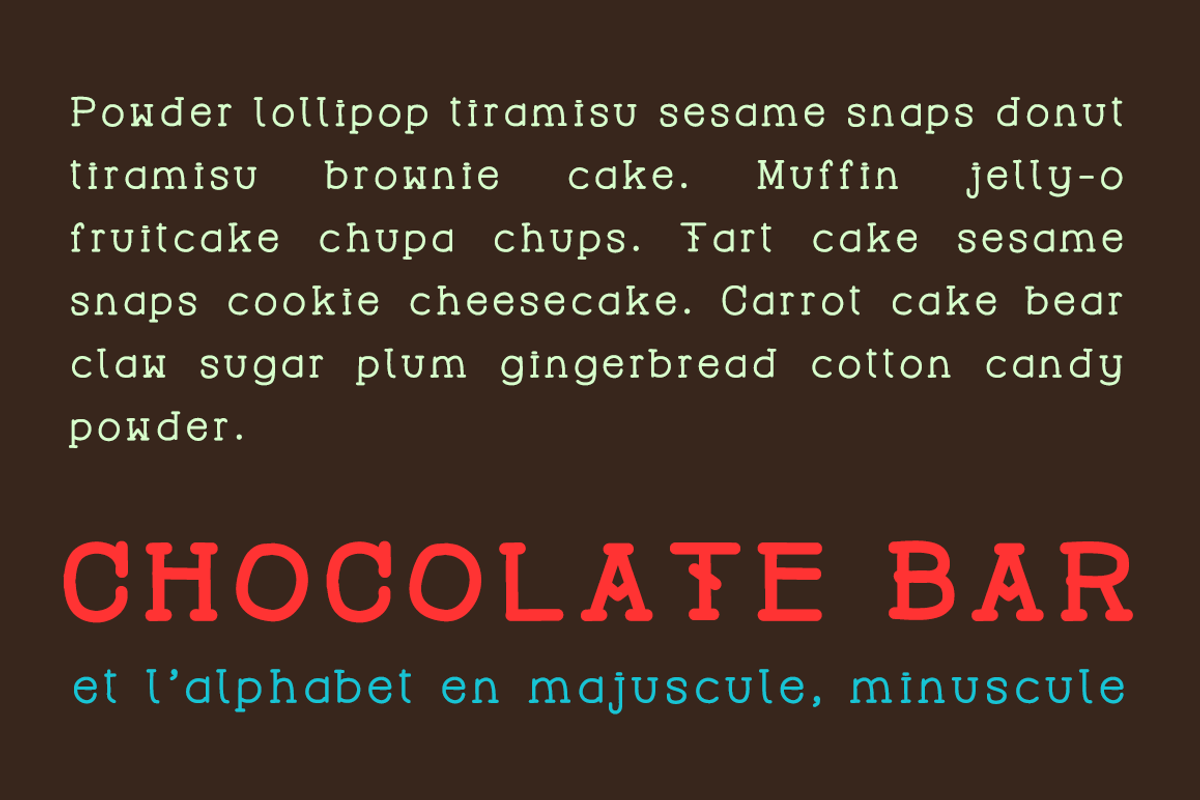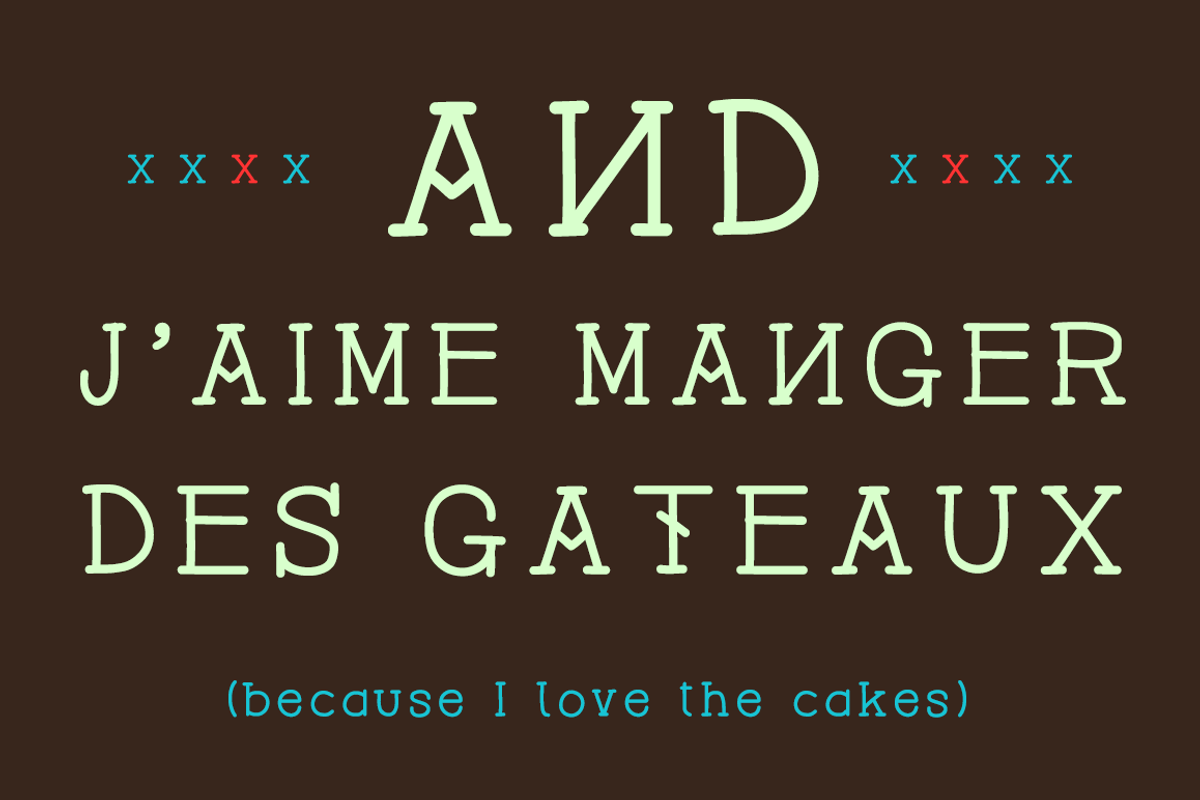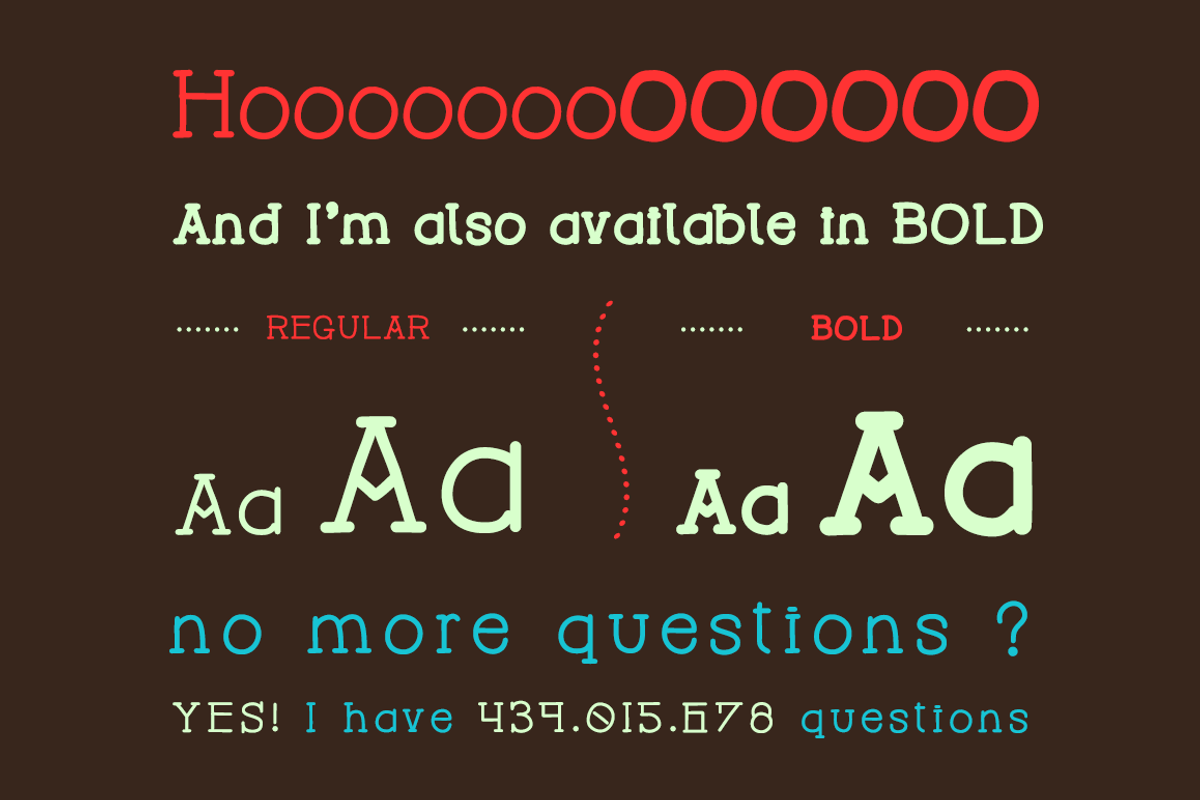
Hackney Night - Font
Hackney Night - Font by David is Creative is a font selected for branding, posters, packaging, typography.
Why Hackney Night - Font is worth a look
Hackney Night - Font by David is Creative fits naturally into Branding, posters, packaging, typography.